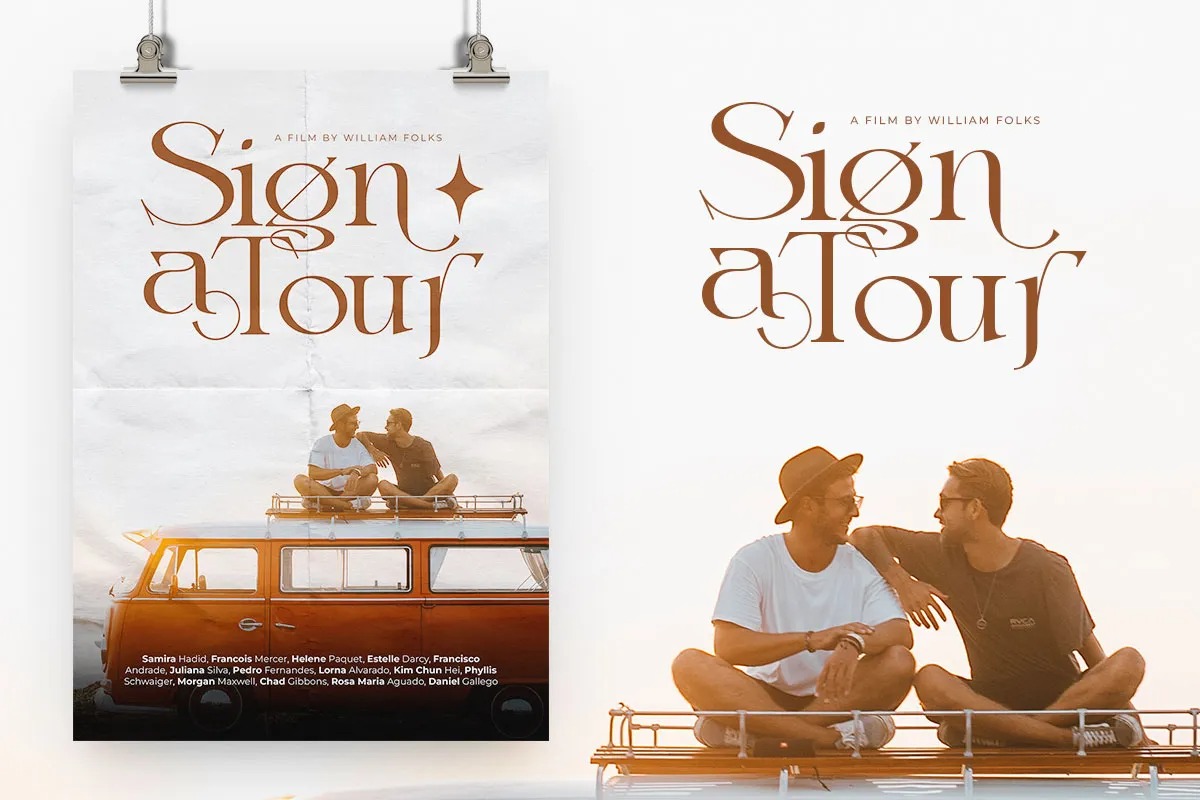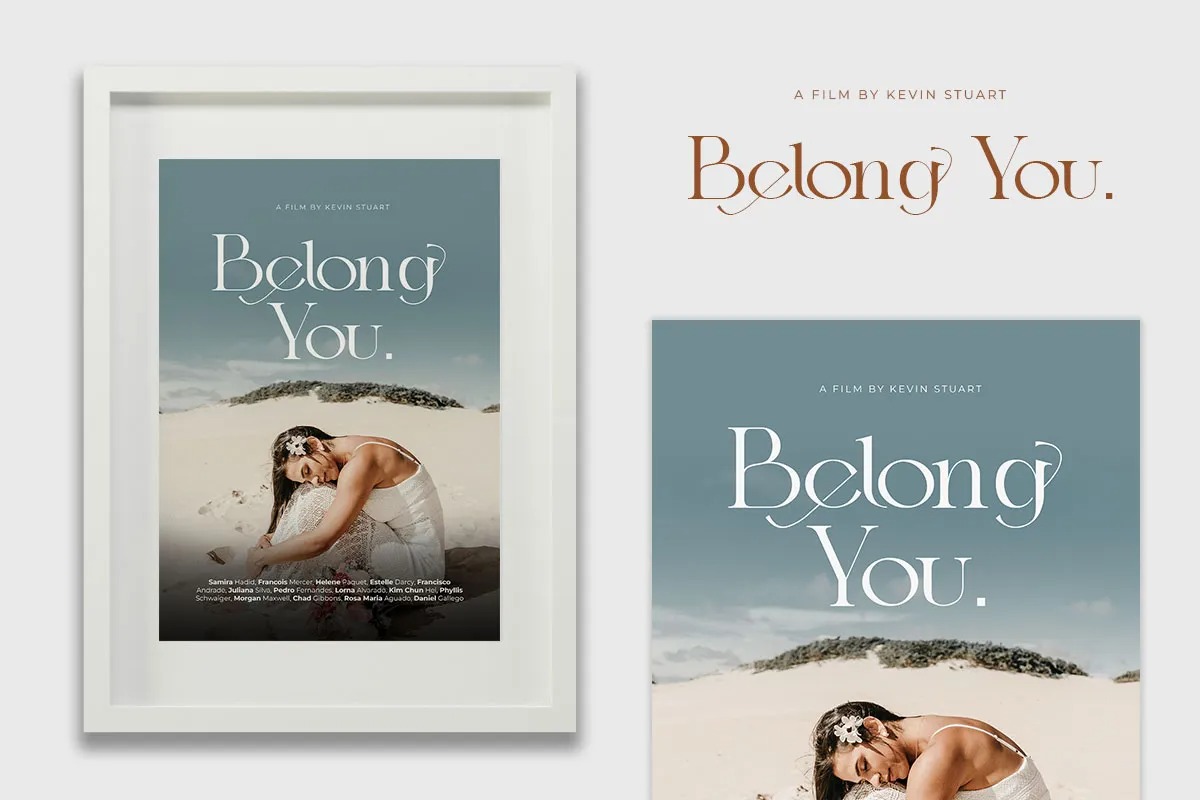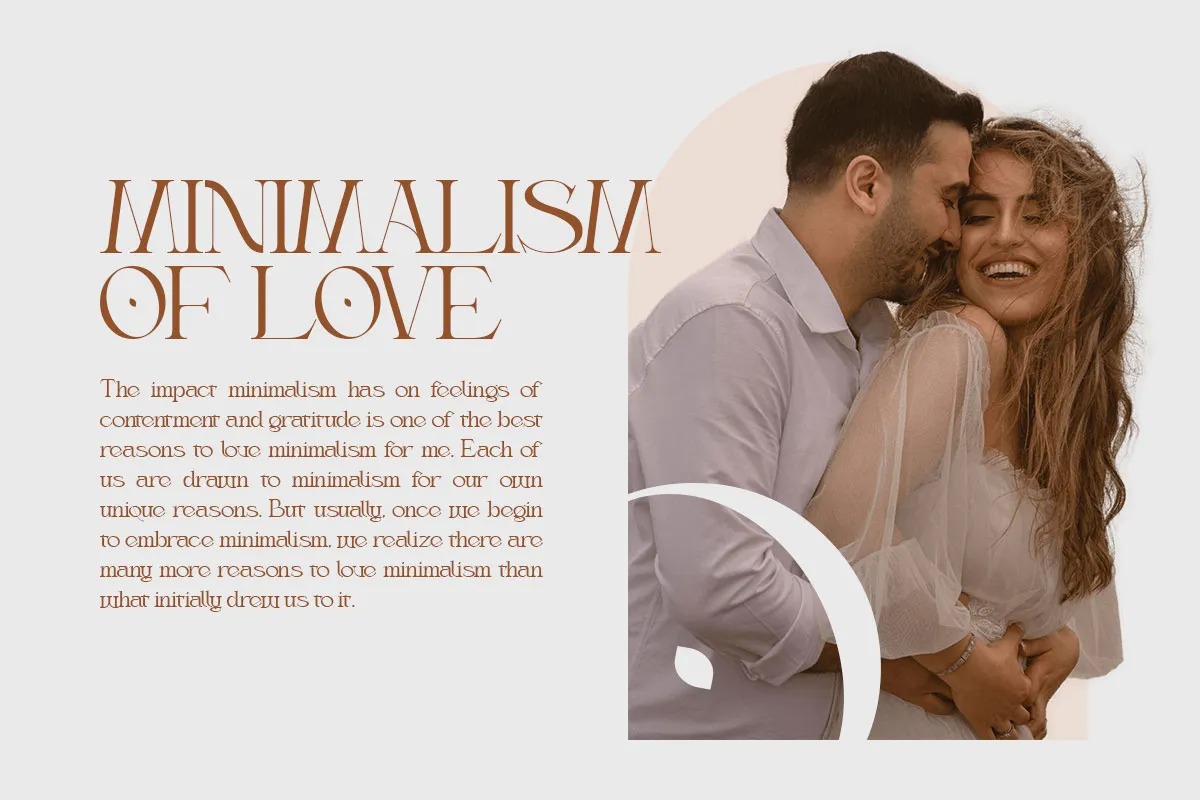
Thanjidor Serif Font
This is an elegant ligature serif typeface manufactured by fontkong. Its soft curves and high contrast glyphs, give it a feminine and masculine quality. It comes with epic ligatures and alternates. Great in layout design for quotes or body copy, best used as a display for headings, logos, branding, magazines, product packaging, and invitations.